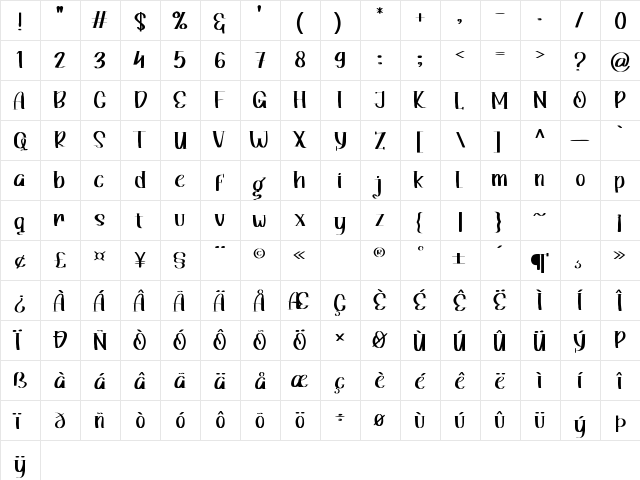
JIRUT Regular
Design Context for JIRUT Typeface
JIRUT is a composed and adaptable typeface that performs quietly and consistently across a wide range of design contexts.